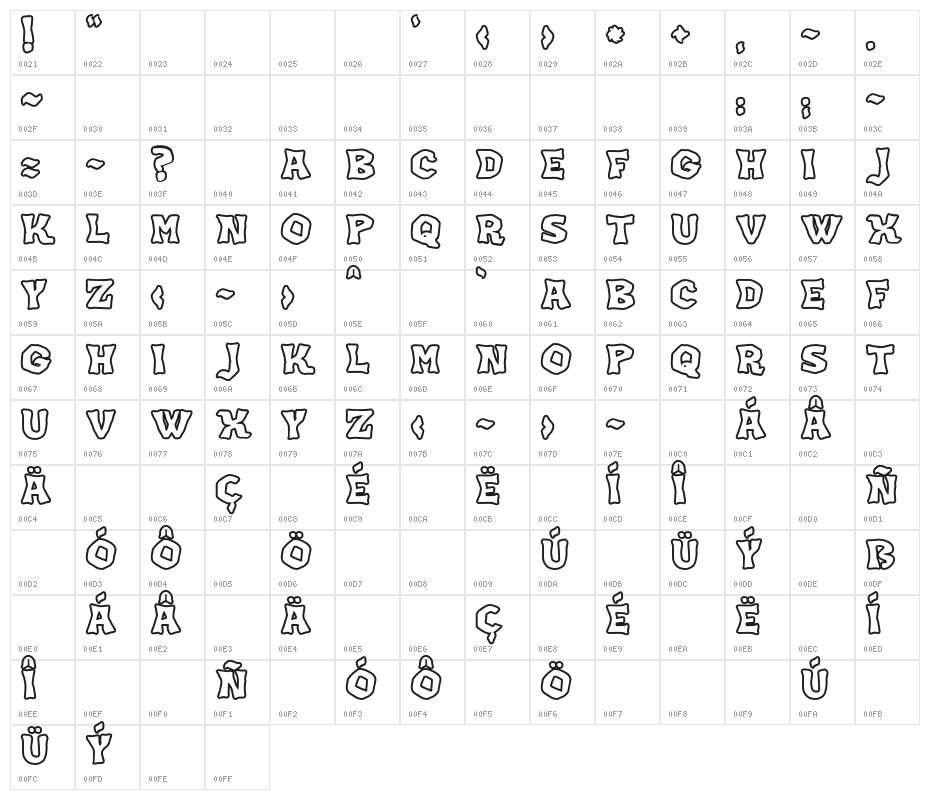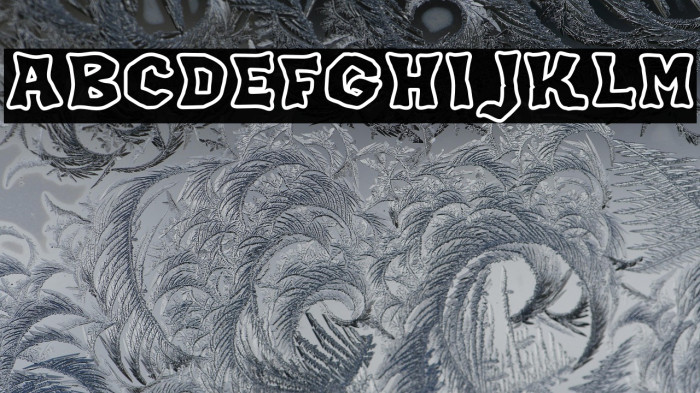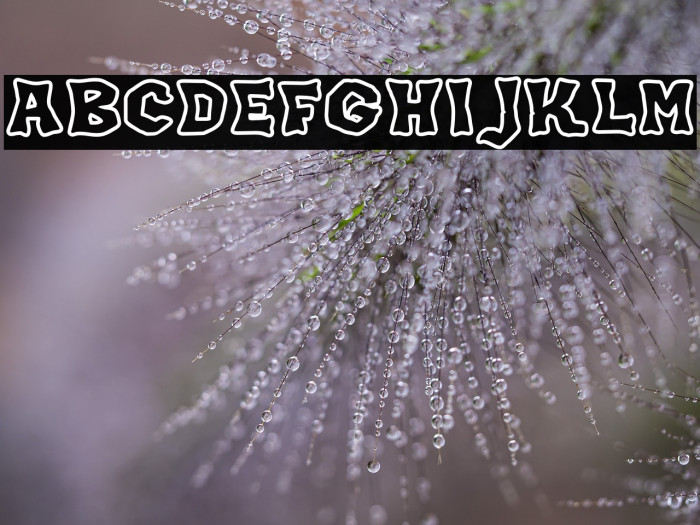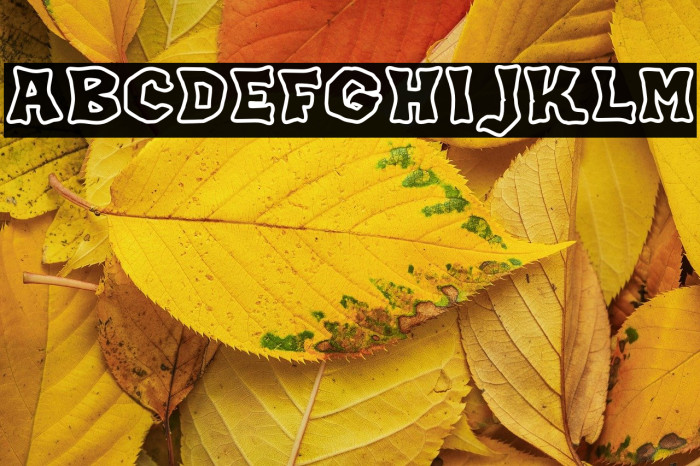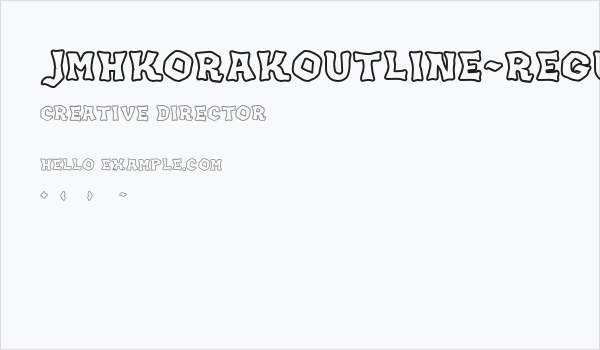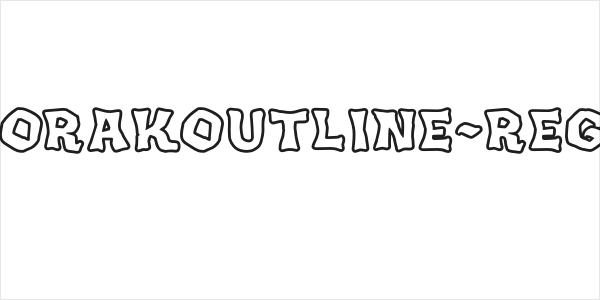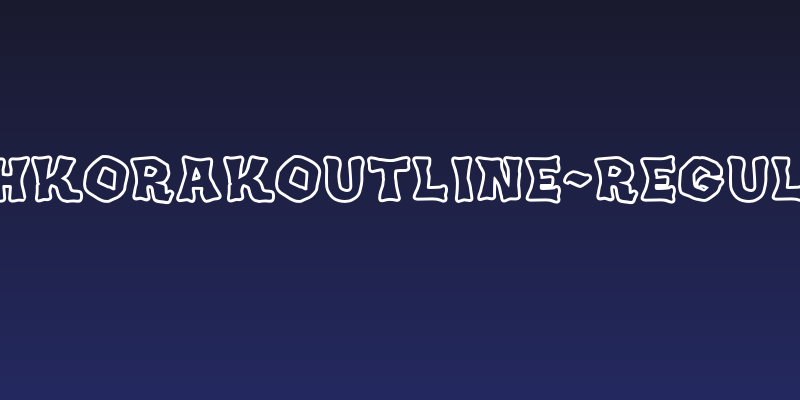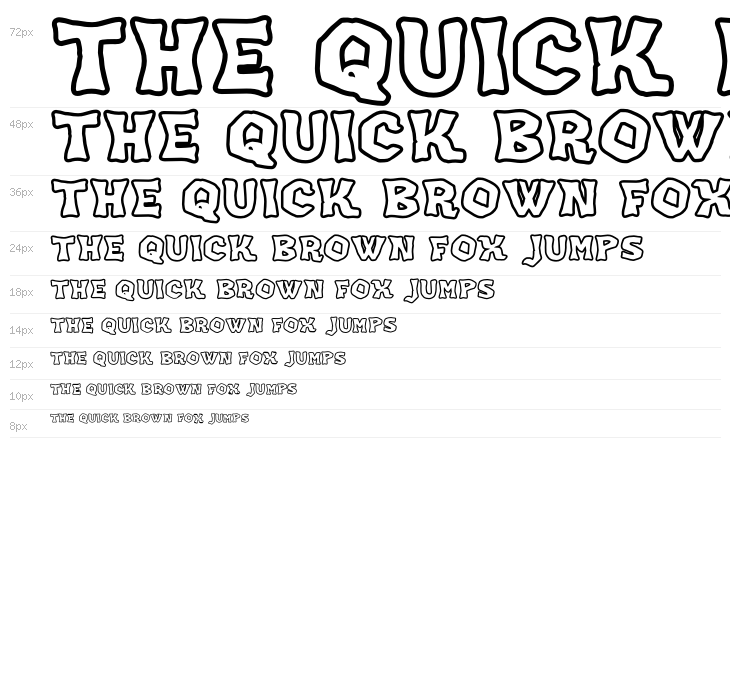
JMHKORAKOUTLINE-Regular Font
JMHKORAKOUTLINE-Regular Description
This font features a bold, playful outline style that gives each character a distinct, hand-drawn appearance. The uppercase letters are consistent in height, with a slightly irregular shape that adds a whimsical touch. The characters are outlined with a thick, black stroke, creating a strong contrast against the background. The font lacks lowercase letters, focusing solely on uppercase and special characters, which enhances its decorative appeal. The special characters maintain the same playful outline style, ensuring consistency throughout the font. This design is ideal for projects that require a fun and eye-catching typeface.
| Overall Style | Playful, Decorative |
| Proposed Projects | Ideal for children's books, comic strips, posters, and playful branding. |